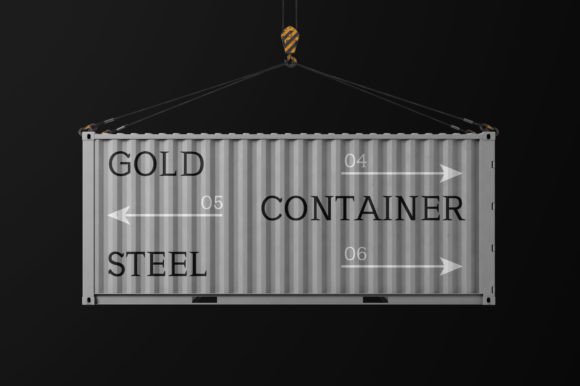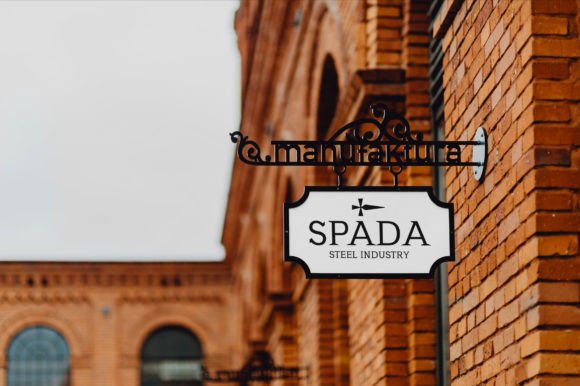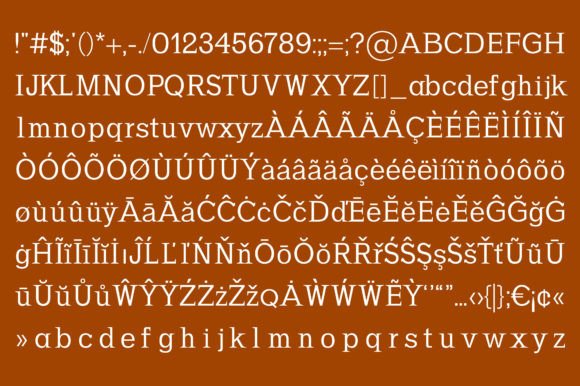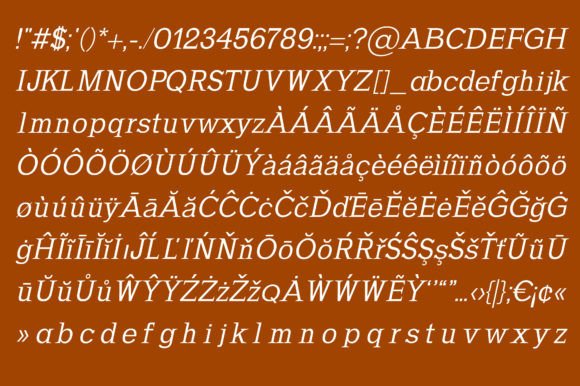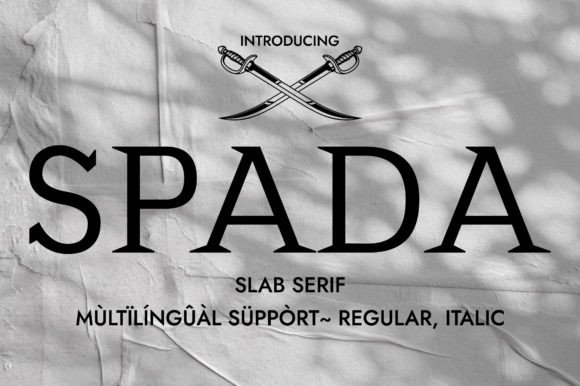
Spada Font
Spada: A Sharp and Elegant Slab Serif Typeface
Spada is a sharp and elegant slab serif typeface. Thanks to its unique glyph construction, it’s an excellent choice for serious projects that need a delicate touch, clean look, and elegant note. Furthermore, when you use it in packaging design, perfume branding, or fashion design presentations, you’ll quickly notice the power within each glyph.
Key Features of Spada
• Sharp Design: Offers precise and well-defined letterforms.
• Elegant Style: Brings sophistication to designs.
• Unique Glyphs: Features distinctive character construction.
• Delicate Touch: Balances strength with refinement.
Best Uses for Spada
Thanks to its unique characteristics, Spada works especially well for:
When using Spada in your designs, keep these tips in mind:
• Use for headlines or short text to show off its sharp and elegant style.
• Try different sizes to highlight the font’s unique glyph construction.
• Pair with simpler fonts for body text to create contrast.
• Let its delicate touch enhance serious design projects.
To sum up, Spada is an excellent choice for designers seeking a sharp and elegant slab serif font. Its unique glyph construction makes it perfect for serious projects that need both refinement and impact. Whether you’re working on packaging design, creating perfume branding, or developing fashion presentations, Spada offers the perfect mix of elegance and power.
Moreover, Spada’s distinctive design allows it to shine in contexts where sophistication is key. For instance, from luxury branding to professional presentations, this font can lift your projects with its sharp style. Also, its delicate yet powerful appearance works particularly well in designs that aim to make a refined impact.
In conclusion, Spada truly captures the essence of elegant design in slab serif typography. Its versatility across different applications shows how well it can serve various creative needs. Therefore, for those wanting to add a touch of sharp sophistication to their work, Spada can enhance any design with its unique style. Ultimately, it’s perfect for designers aiming to make an elegant, powerful impact across serious creative projects.